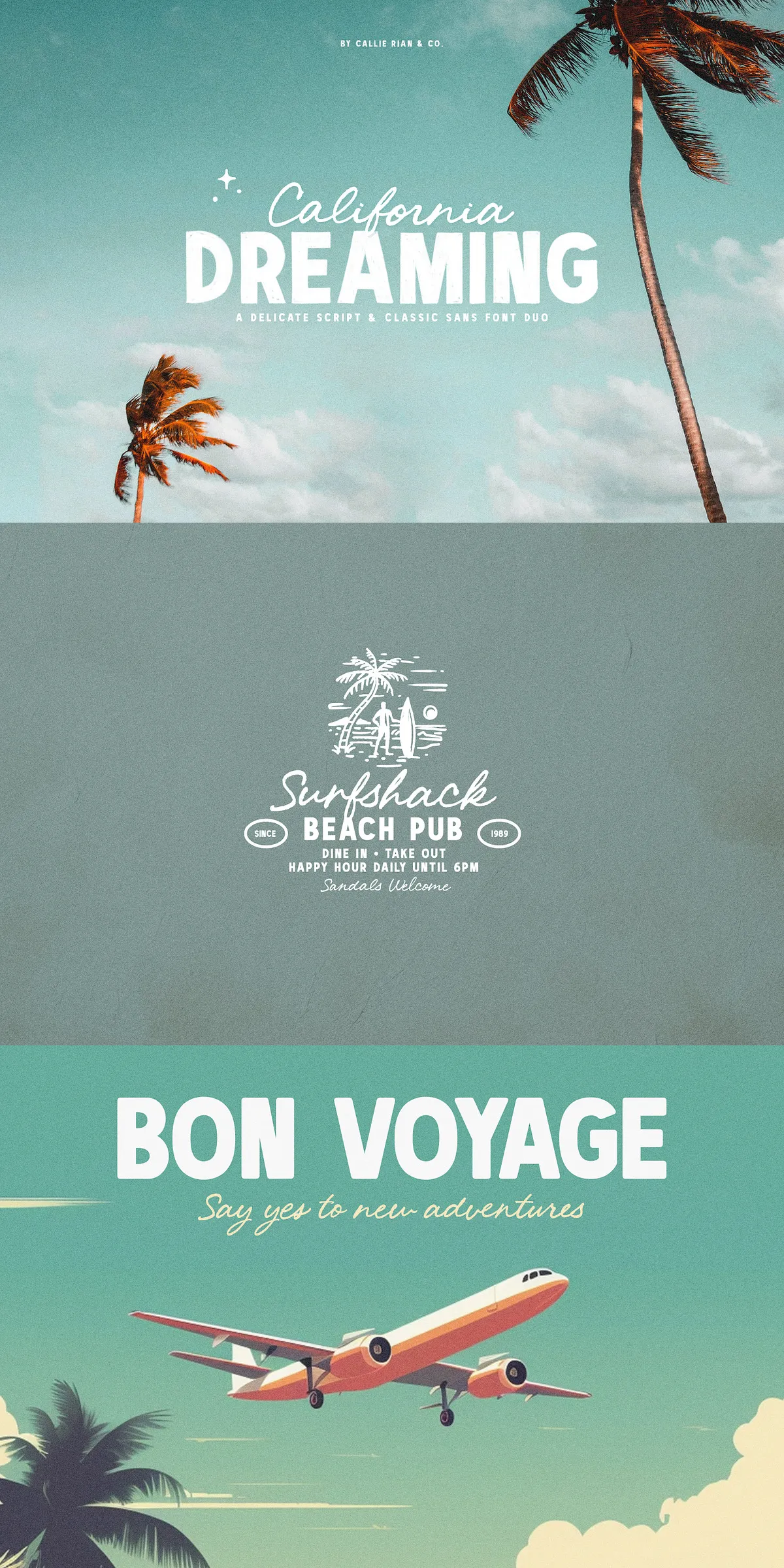
Step into a world of effortless charm and retro energy with California Dreaming—a dynamic, hand-drawn font duo that captures the spirit of laid-back California vibes. This isn’t just a pair of fonts; it’s a creative powerhouse designed to spark imagination and transform your projects from ordinary to unforgettable.
A Perfect Harmony: Sans Serif Meets Textured Script
At the heart of California Dreaming lies a masterfully balanced pairing: a clean, classic sans serif blended with a richly textured, authentic script. The sans serif component delivers modern clarity and versatility, while the script adds soul, movement, and a personal touch. Together, they create a design dialogue that’s both fresh and nostalgic.
Whether you’re building a brand identity, illustrating a book cover, or crafting a social media post, this duo delivers instant visual impact. The contrast between structured precision and spontaneous flourishes creates a dynamic tension that’s impossible to ignore.
Four Versions, Infinite Possibilities
The classic sans serif component isn’t just one style—it’s a suite of four distinct versions, each engineered for a different creative purpose:
- Standard: The clean, foundational look—perfect for headlines, logos, and minimal layouts.
- Thick: Adds bold weight and presence, ideal for posters, packaging, and statement pieces.
- Outline: A crisp, empty silhouette that opens the door to overlay design, color fills, and creative layering.
Textures That Tell a Story
Unlike generic fonts, the script component of California Dreaming features a hand-crafted, textured appearance that mimics real pen strokes. You’ll feel the weight of the brush, the slight tremble of the hand, the subtle variations in line thickness. This isn’t digital perfection—it’s authenticity.
From handwritten notes to designer sketches, this texture adds warmth and humanity to your work. It turns a simple tagline into a personal message. It transforms a social media caption into a story.
Designed for Every Creative Project
California Dreaming was built to be used everywhere. Here’s where it truly shines:
- Headlines & Taglines: Make your first impression unforgettable.
- Book & Album Covers: Infuse your creative projects with vintage flair and modern energy.
- Greeting & Post Cards: Add a personalized, heartfelt touch to every message.
- Product Packaging & Stickers: Stand out on the shelf with playful, eye-catching design.
- Social Media Graphics: Capture attention with bold, expressive visuals.
- Branding & Identity Systems: Build a warm, inviting brand personality that connects with your audience.
Unleash Your Unique Vision
This font duo isn’t about fitting into a template—it’s about breaking free. Use the sans serif for structure. Let the script flow with emotion. Combine them in unexpected ways. Layer them. Color them. Animate them. The only limit is your imagination.
Whether you’re a graphic designer, small business owner, indie author, or digital creator, California Dreaming gives you the tools to express yourself with confidence and personality.